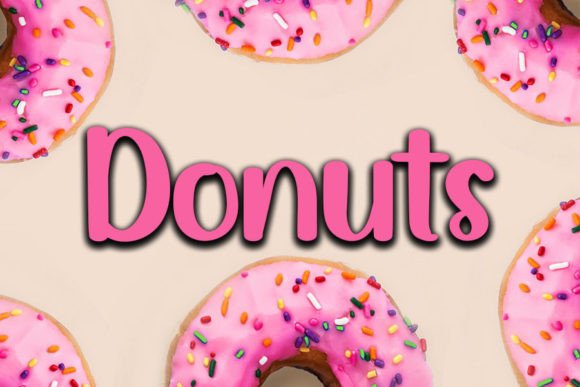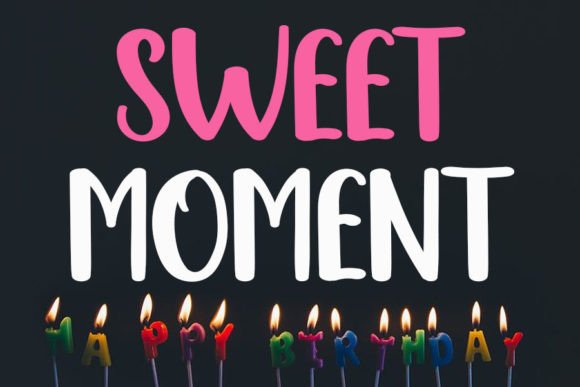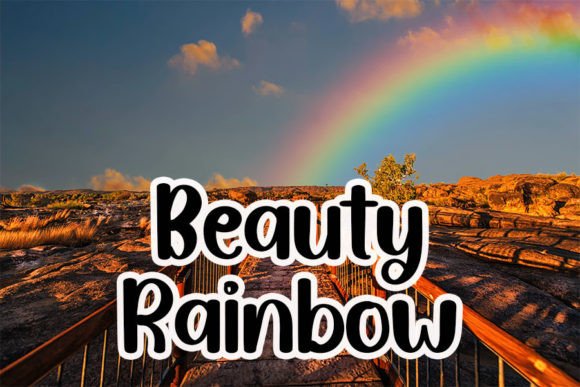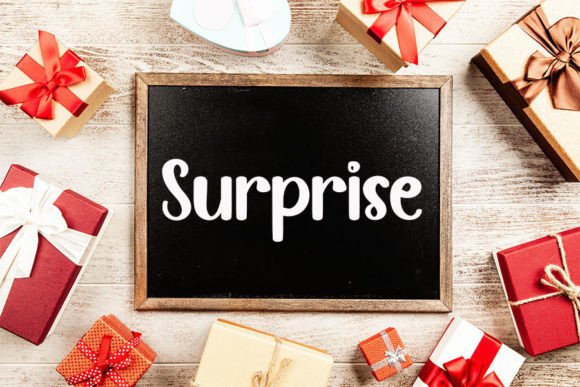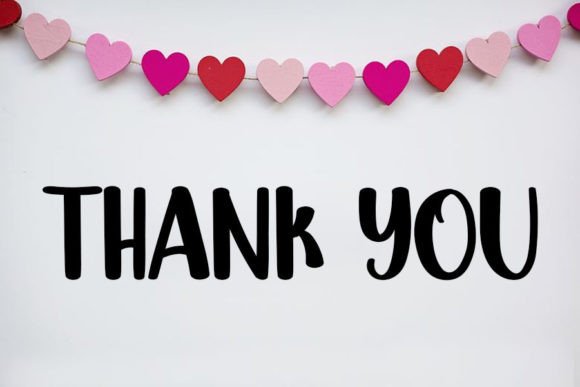
The Perfect Font for Your Special Day
As designers, we’ve all been there – staring at a blank canvas, waiting for that spark of creativity to strike. It’s that moment when the perfect font suddenly appears, elevating your entire project from ordinary to extraordinary. For me, it was the day I discovered the Birthday Font, a magical handwritten font that has been a game-changer for my designs.
Birthday Font is more than just a typeface – it’s a way to add a touch of elegance and whimsy to your work. With its clean and quirky lines, this font is perfect for logos, branding, social media, and crafty DIY projects. Whether you’re a seasoned designer or a crafty enthusiast, the Birthday Font is a valuable addition to your toolkit.
Birthday Font Key Features
- Unique Characteristics: The Birthday Font features playful, cursive script with decorative elements, making it perfect for creating celebratory and festive designs.
- Kerning and Ligatures: The font includes advanced kerning and ligature features, ensuring smooth text flow and visually appealing typography.
Birthday Font Review
At first glance, Birthday Font seems like a cute and playful addition to any design project. ✨ The whimsical, handwritten feel of this font is perfect for creating a festive atmosphere, especially when it comes to birthday invitations, party decorations, and other celebratory materials. The font’s irregularity and organic look give it a unique charm that’s hard to resist.
- ✨ The font’s expressiveness and personality shine through in every letter, making it ideal for projects that require a touch of warmth and personality.
However, there are some limitations to consider. ⚠️ The font’s lack of consistency and uniformity can make it difficult to read at smaller sizes or in dense text. Additionally, the font’s cursive nature can make it challenging to use for projects that require clear, concise communication.
Overall, Birthday Font is a fun and creative addition to any design project, but it’s essential to use it judiciously and in the right context. With careful consideration and balancing, this font can add a touch of magic to your designs.
Tips for Getting the Most Out of the Birthday Font
Use the Birthday Font to create eye-catching invitations, party decorations, and gift tags.
Experiment with different font sizes and colors to create a unique look.
Combine the Birthday Font with other design elements, such as graphics and images, to create a cohesive design.
The Birthday Font is perfect for:
Birthdays and celebrations
Wedding invitations and decorations
Anniversary and holiday cards
Gift tags and party favors